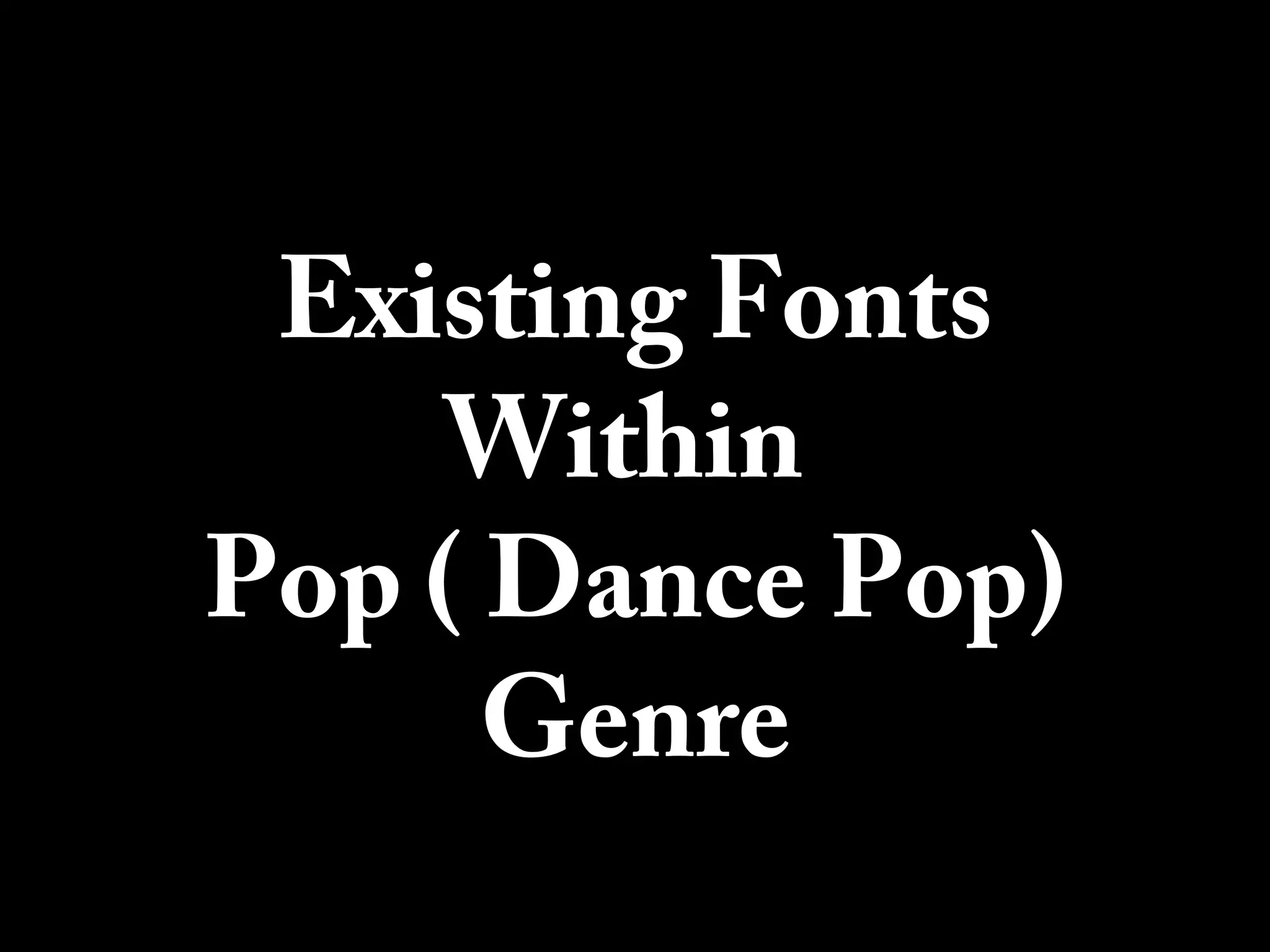
Existing Fonts
Within
Pop ( Dance Pop)
Genre
When typing dance pop into google this is what I found, it shows a range of fonts
and styles. There is a mix of big bold fonts that really stand out from the page that
take up a lot of room making the title of the album the main focus of the cover,
these types of covers usually are not accompanied by an image but by a simple
background or pattern. Colours in which are quite popular are purples and pinks for
the fonts and the images.
When researching different artists and albums within the dance pop genre
it came up with a mixture of different fonts and styles, I have found that the
style and font tends to represent the theme of the style of the artist, for
example Avicii is quite reckless and fun, this is shown within the font of his
album as it is almost like graffiti, very big and rough like its being painted
on the front of the album. Avicii is known for his graffiti especially in his
video "The Nights". This represents him as an artist, however artists such
as Beyonce who have a more elegant and femanine font usually have a
softer voice and it tends to appeal more to a female audience. The font is
much thinner however it still has that dramatic effect that you would expect
to find in the dance pop genre. This is also shown in artists like Shakira,
Agnes, Little Boots and J' Lo.
Common colours in which you find fonts on these albums are white and
black, depending on the artist or the album, they also used coloured fonts,
pinks and purples being popular choices.